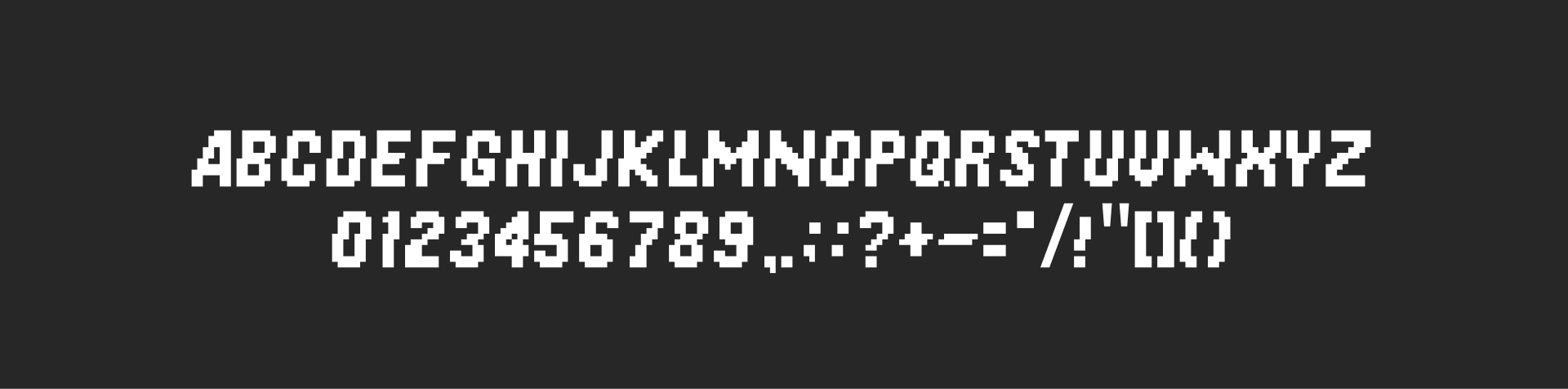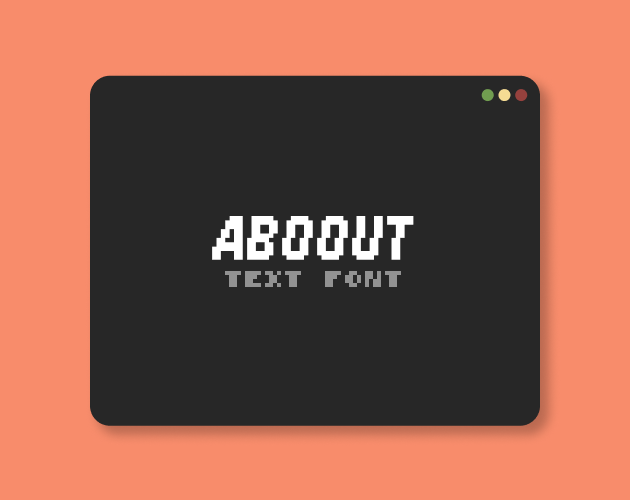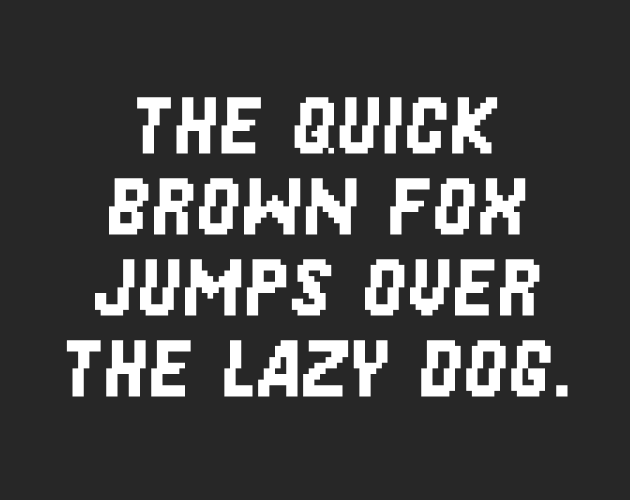
Pixel Font - ABOOUT
ABOOUT is a 10px tall pixel font!
Full Character Set:
ABCDEFGHIJKLMNOPQRSTUVWXYZ
abcdefghijklmnopqrstuvwxyz
0123456789,.;:?+-=*/!"[]()